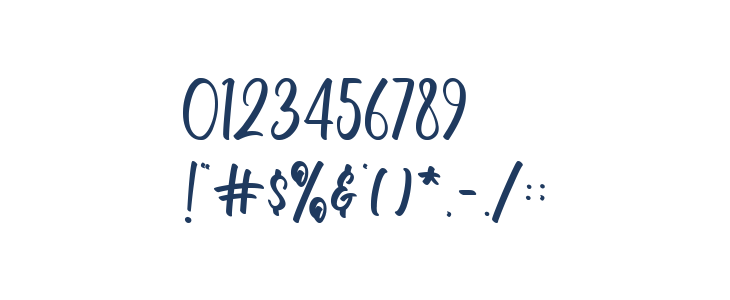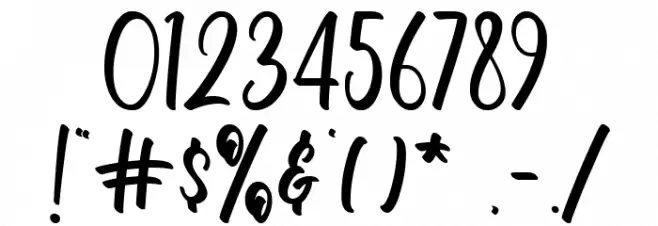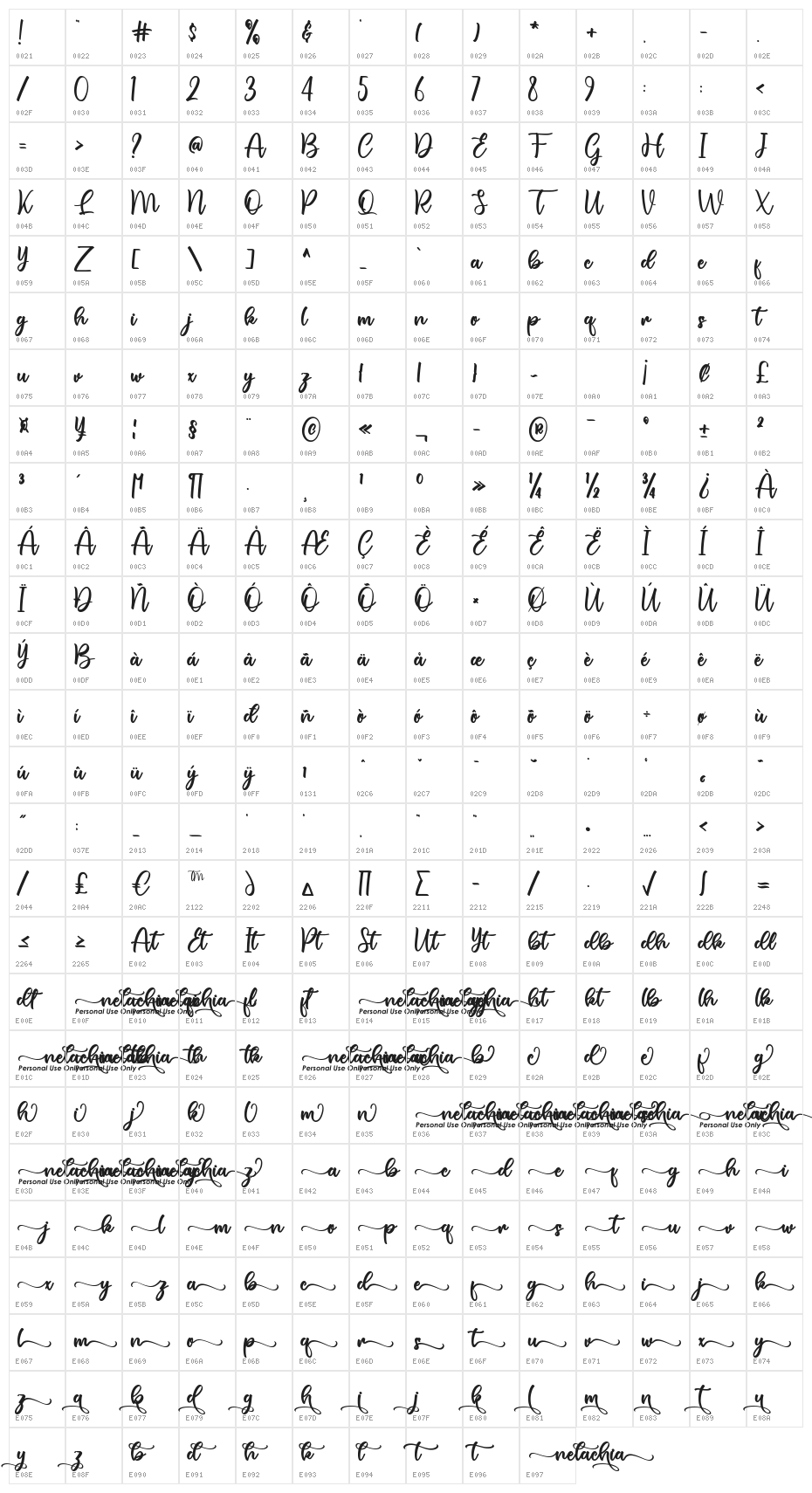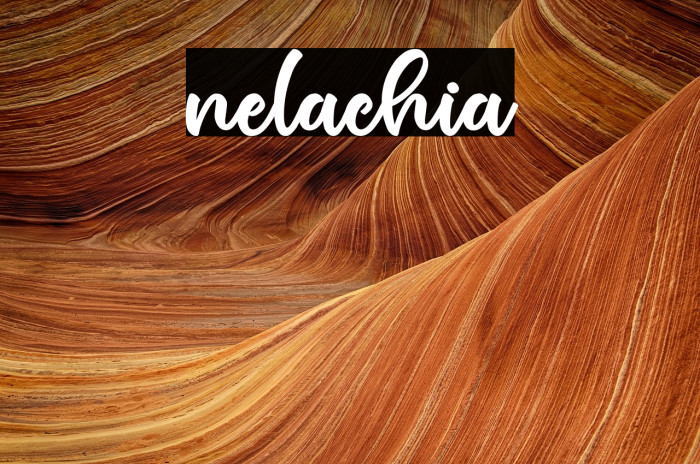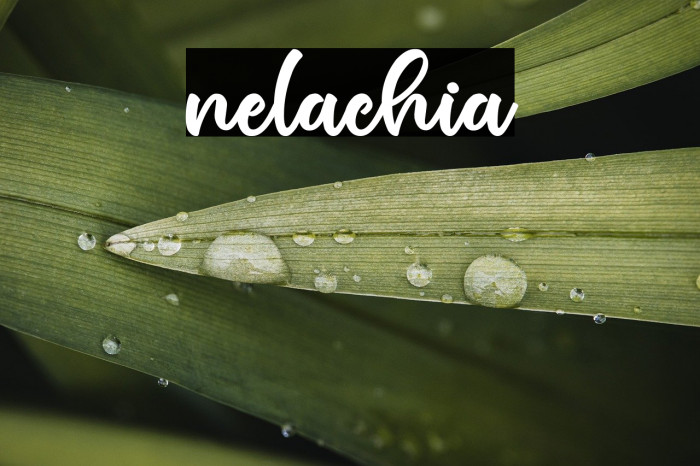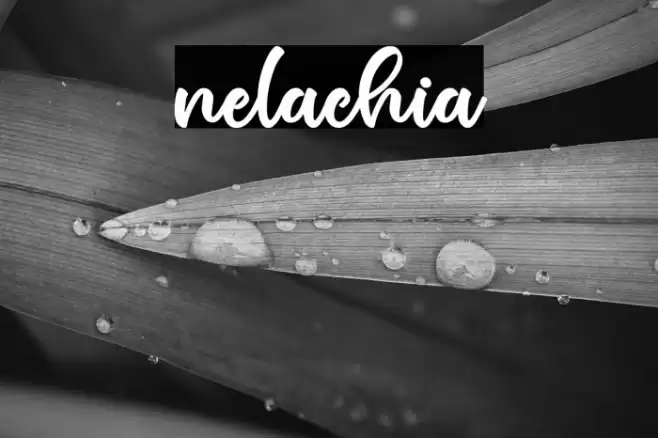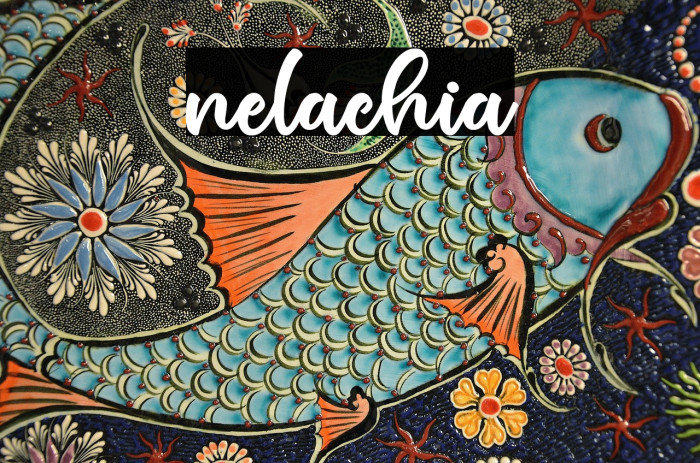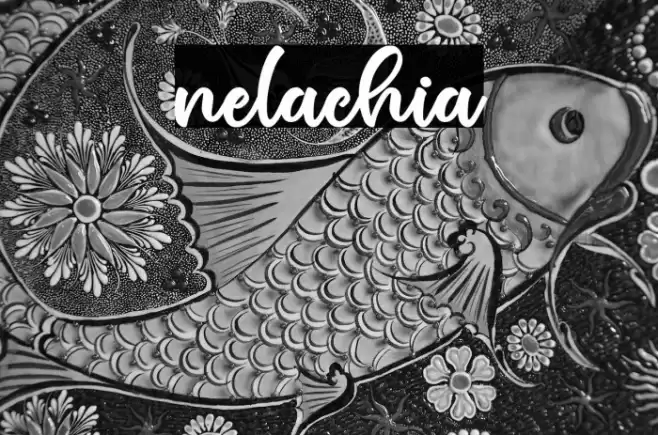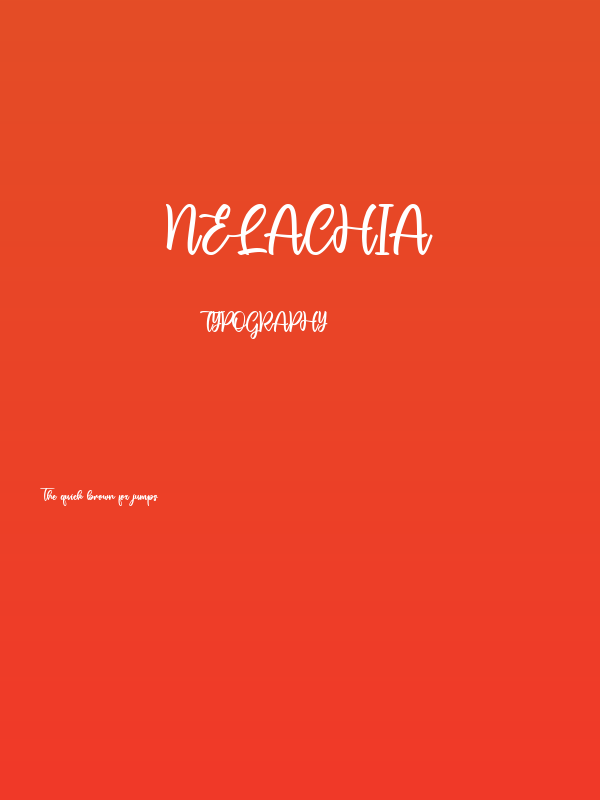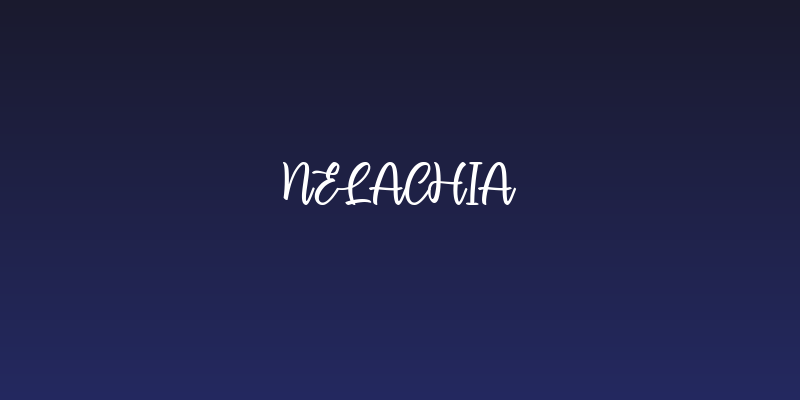
nelachia Font
nelachia Description
This font features a playful and expressive handwritten style, characterized by its fluid and dynamic letterforms. The uppercase letters are bold and slightly condensed, with a whimsical flair that adds personality to each character. The lowercase letters maintain a consistent flow, enhancing readability while retaining a casual elegance. The numbers are well-proportioned, complementing the overall aesthetic. Special characters are creatively designed, adding to the font's versatility. This font is ideal for projects that require a personal touch, such as invitations, greeting cards, and creative branding.
| Proposed Projects | Ideal for invitations, greeting cards, and creative branding projects. |